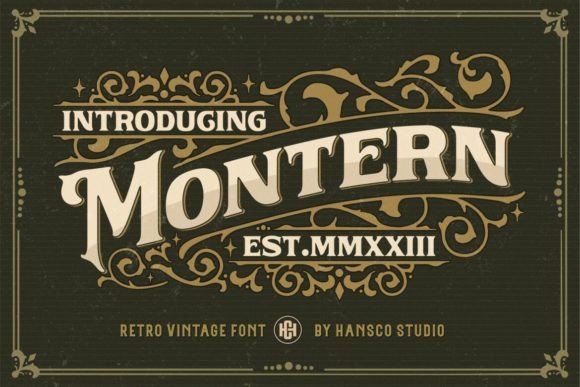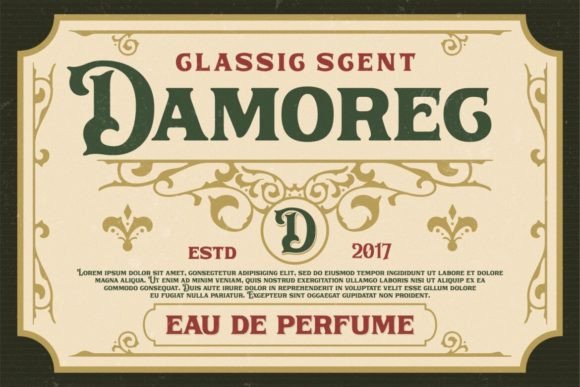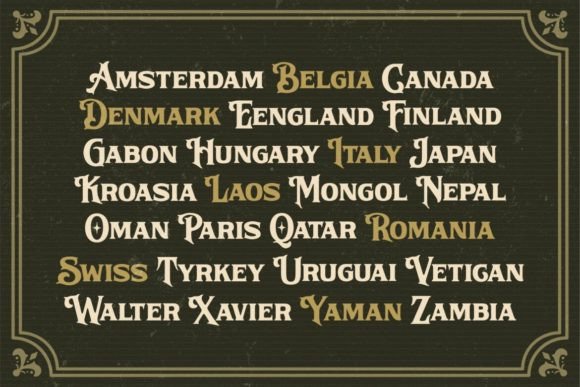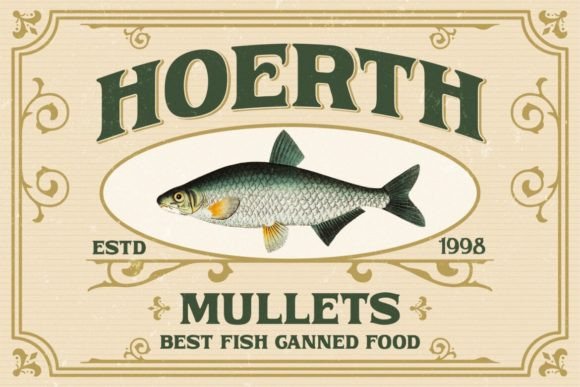
Montern Font: A Rustic Vintage Typeface for Logo Design & Branding
About the Montern Font
Presenting Montern Font, a unique and stylish typeface that will make your work stand out. Montern is a Vintage typeface font, it will add an old-rustic charm to any design project. This collection of font is perfect for everything your project with vintage, retro, wild or organic style. It was made with the intention of being used for product Logo like a Pomade, Coffee, Barber shop or packaging label. It’s great also for branding, logo designs, lettering, logotype, craft, posters and much more.
Montern’s vintage aesthetic makes it ideal for branding projects evoking nostalgia, particularly for products like coffee, barber shops, or artisanal goods. It excels in headlines, logos, and short textual elements on packaging, posters, and social media graphics where its unique character can shine. However, its low x-height and decorative elements make it unsuitable for extended body text or UI elements requiring high readability.
Pairing Montern effectively depends on the desired balance. For a more rugged feel, consider pairing it with a strong sans-serif like Bebas Neue. To soften its vintage character, a delicate script font like Great Vibes offers a pleasing contrast. A classic serif like Playfair Display could also work well, providing a touch of elegance to complement its rustic charm.
Montern projects a bold, rustic, and slightly rebellious personality. It’s best suited for brands that want to communicate a sense of history, authenticity, and handcrafted quality. Avoid using it for projects requiring modern minimalism or sleek, corporate branding.